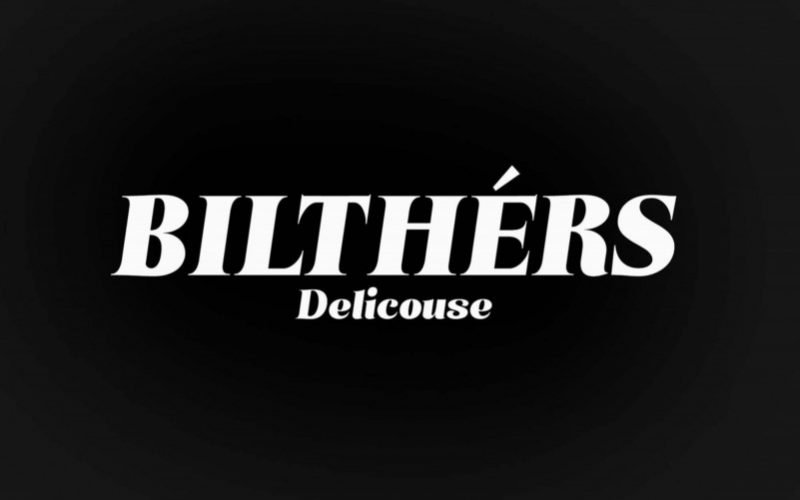
Bilthers Free Font
Bilthers is a free serif elegant italic typeface made for designers special design purposes. It contains lowercase letters, uppercase, and numerals. It has a little bit of personality and can be used for both headers and body copy. This font family includes all Latin characters (including accents), numbers, special characters, and punctuation.